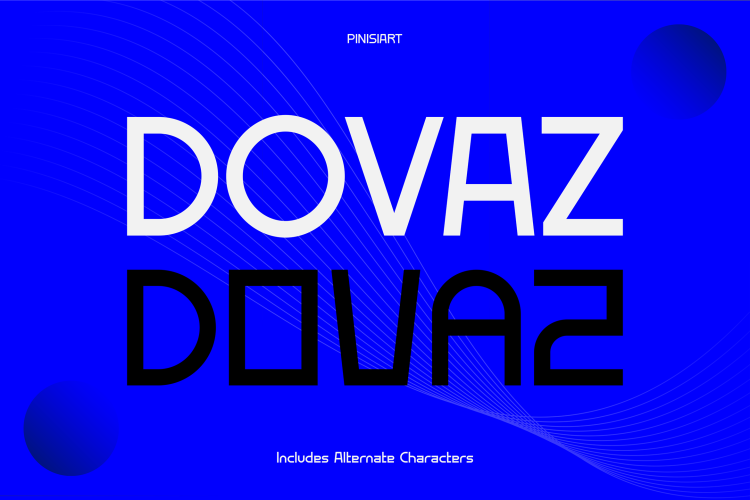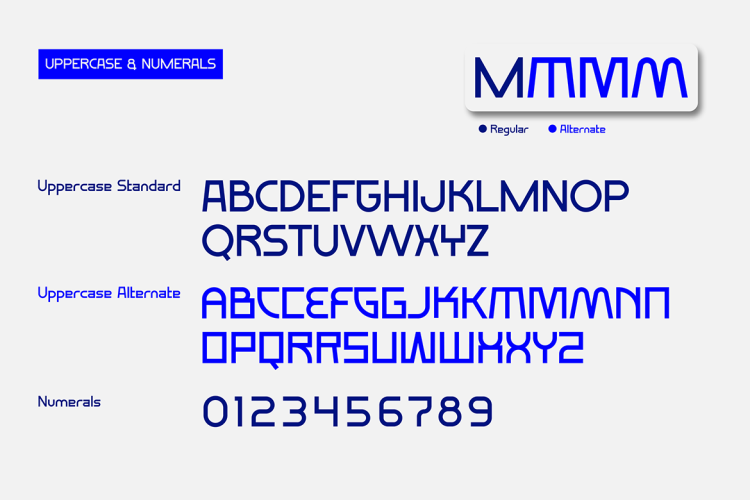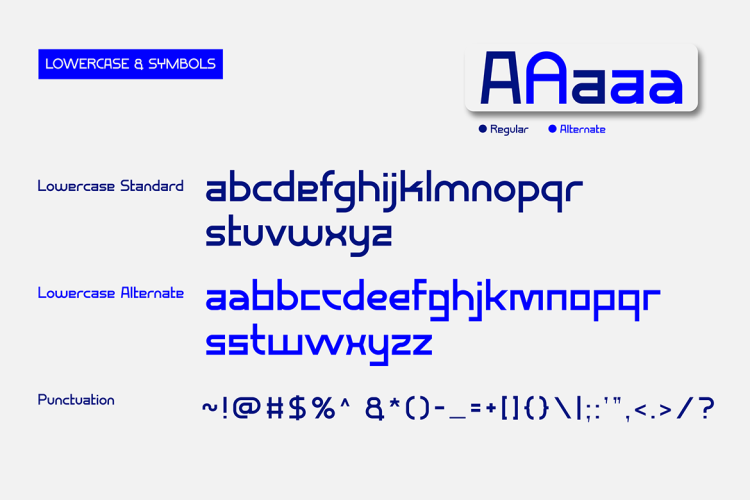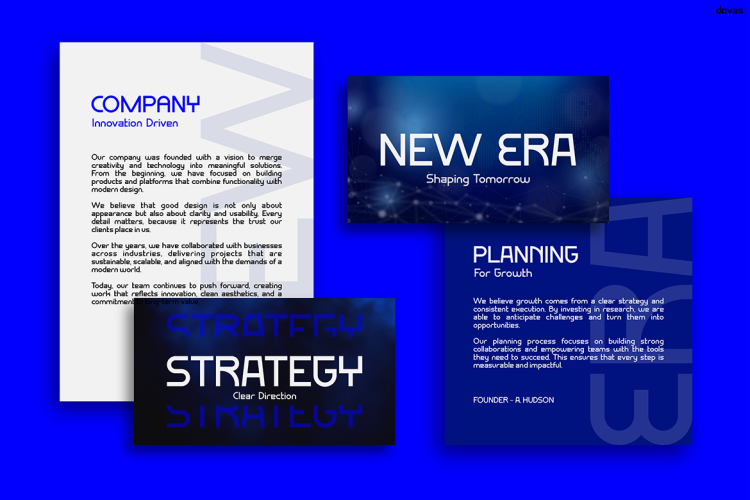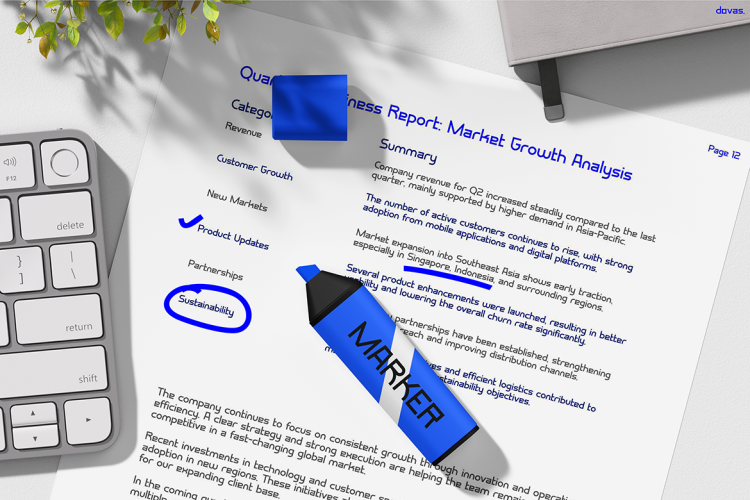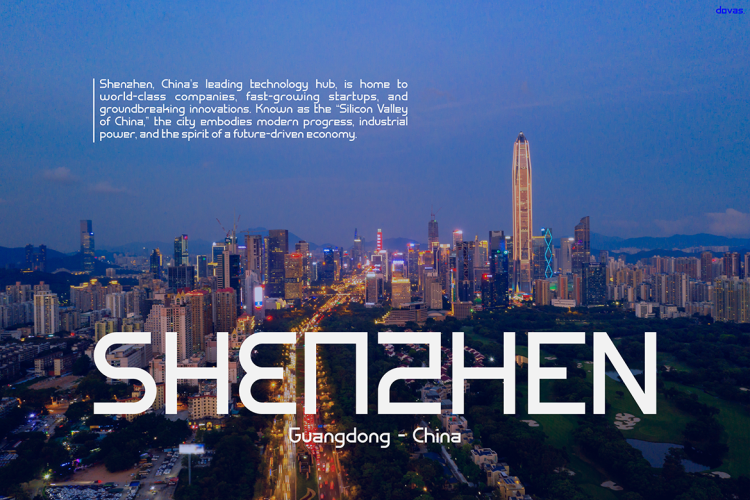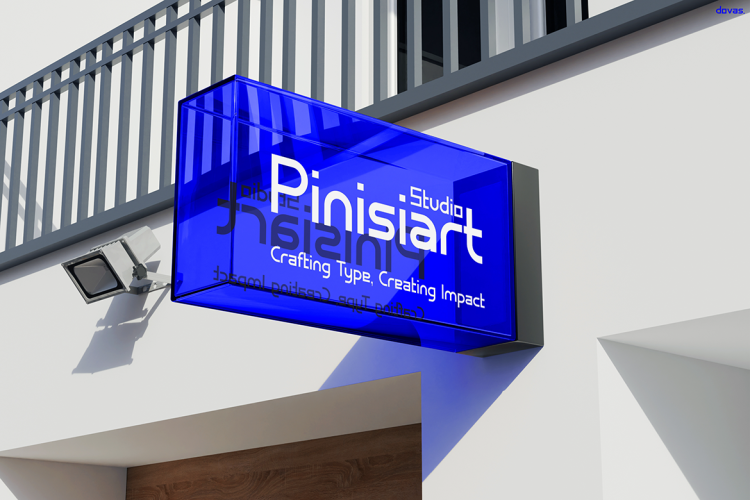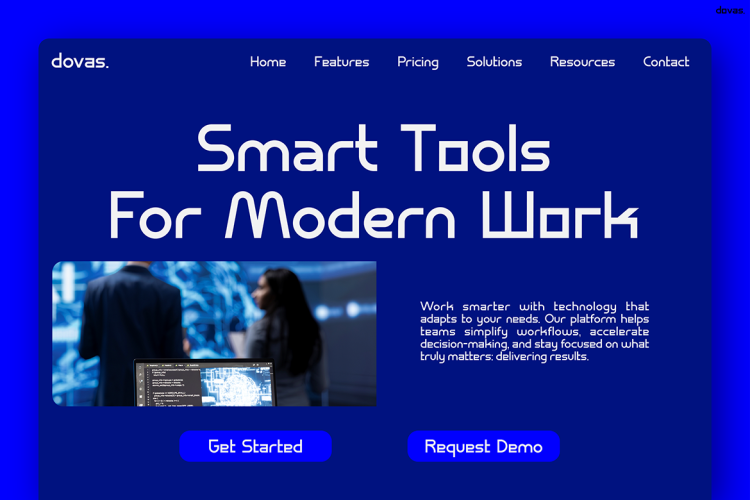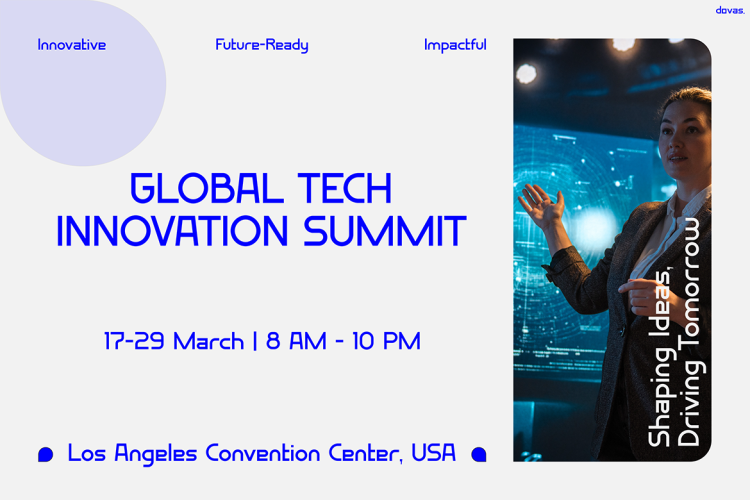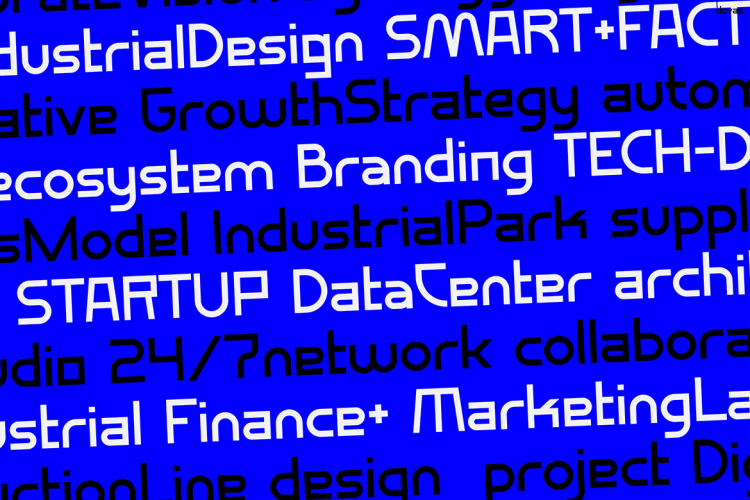
Futuristic Font DOVAZ โ Bold, Modern, and Versatile
Futuristic Font DOVAZ is a striking typeface with bold geometric forms and clean modern lines. It offers a strong futuristic look that feels both unique and professional. Moreover, what makes this font stand out is its multiple alternate styles, giving you the freedom to adapt and customize your designs. As a result, with DOVAZ you can create projects that look fresh, modern, and innovative while remaining clear and easy to read.
Why This Font is Special
Futuristic Font DOVAZ is more than just a single typeface. In fact, it comes with several alternates that make it versatile for different design moods. Therefore, you can easily switch styles to add variety without needing another font family. The sharp angles and futuristic shapes instantly draw attention, while the spacing and balance ensure readability. In addition, its design works well for both large displays and digital interfaces. Thus, it is perfect for headlines, posters, branding, and corporate presentations that need to impress.
Futuristic Font DOVAZ Perfect For
DOVAZ works for many creative and professional needs :
Designers and Agencies โ Great for logos, posters, and advertising with a modern futuristic edge.
Tech Startups and Businesses โ Perfect for branding, websites, and presentations that highlight innovation.
Architects and Industrial Firms โ Ideal for portfolios, signage, and design proposals that require a bold impact.
Event Planners and Marketers โ Useful for product launches, global summits, and campaigns that must stand out.
Web and App Designers โ In addition, it enhances UI and UX with a futuristic typeface that still feels professional.